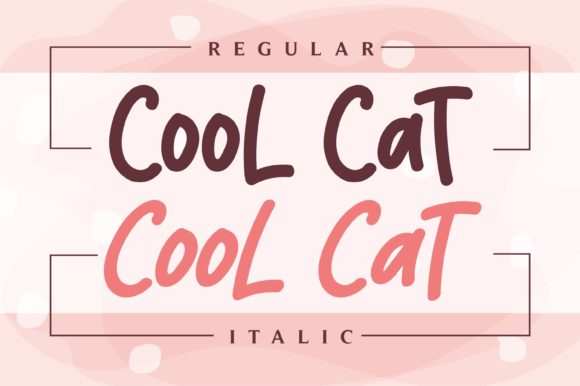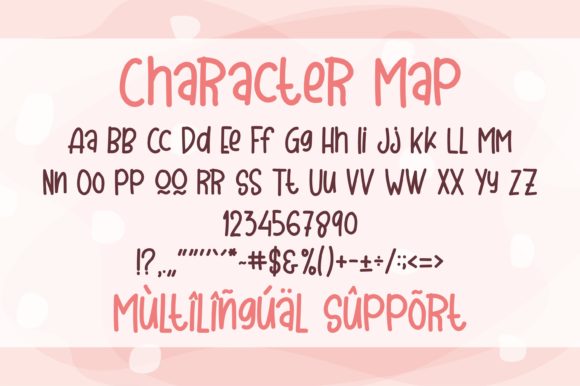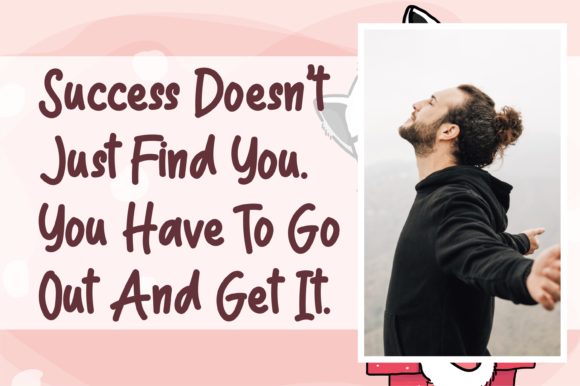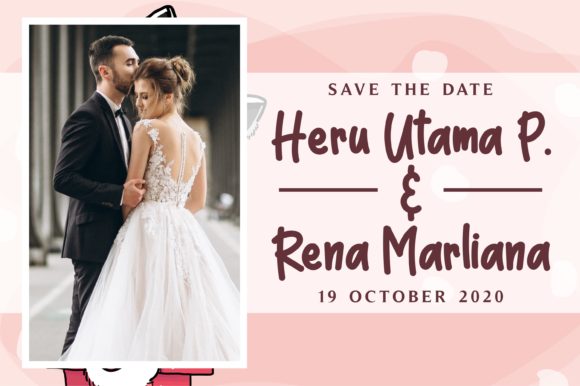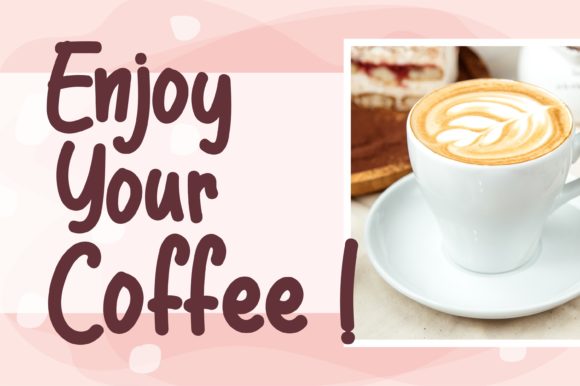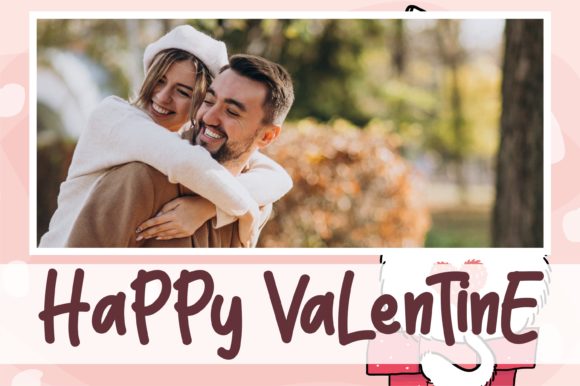
Unleash Your Creativity with Cool Cat Font: The Quirky Display Font That’s Purr-fect for DIY Projects
Are you tired of using the same old fonts for your DIY projects? Look no further! Introducing Cool Cat, a quirky display font that’s sure to bring a playful touch to any craft or design. With its unique style and charming personality, Cool Cat is the perfect choice for designers and crafters looking to add some fun and whimsy to their work.
The Playful Look of Cool Cat Font
Cool Cat is a one-of-a-kind font that’s sure to capture the attention of anyone who sees it. Its playful look is characterized by bold lines, irregular shapes, and a dash of quirkiness. The font’s unique style is reminiscent of hand-drawn letters, giving it a personal and friendly feel that’s hard to resist.
Whether you’re working on a DIY project, designing a logo, or creating social media graphics, Cool Cat is the perfect choice. Its versatility and charm make it suitable for a wide range of applications, from crafting and scrapbooking to branding and advertising.
Why You’ll Fall in Love with Cool Cat Font
So, what makes Cool Cat so special? Here are just a few reasons why you’ll fall in love with this quirky display font:
- Unique Style: Cool Cat has a style that’s all its own. Its bold, playful look is sure to set your designs apart from the crowd.
- Easy to Read: Despite its quirky appearance, Cool Cat is surprisingly easy to read. This makes it perfect for headlines, titles, and other applications where readability is important.
- Versatile: Cool Cat is a versatile font that can be used in a wide range of applications, from digital designs to print projects.
- Fun and Whimsical: Cool Cat has a playful personality that’s sure to bring a smile to your face. It’s the perfect choice for designers and crafters who want to add some fun and whimsy to their work.
Using Cool Cat Font in Your DIY Projects
So, how can you use Cool Cat in your DIY projects? The possibilities are endless! Here are a few ideas to get you started:
- Scrapbooking: Add a playful touch to your scrapbook pages with Cool Cat. Use it to title your pages, highlight important dates, or create fun and colorful journaling.
- Crafting: Cool Cat is perfect for crafters who want to add a personal touch to their projects. Use it to create labels, tags, and other embellishments for your crafts.
- Sign Making: Create eye-catching signs with Cool Cat. Its bold, playful look is sure to grab attention and add a touch of whimsy to any sign.
- Digital Designs: Cool Cat is also perfect for digital designers who want to add a playful touch to their work. Use it to create social media graphics, blog headers, and other digital designs.
Tips for Getting the Most Out of Cool Cat Font
Here are a few tips for getting the most out of Cool Cat:
- Experiment with Colors: Cool Cat looks great in a variety of colors. Experiment with different hues and combinations to find the perfect look for your project.
- Mix and Match: Don’t be afraid to mix and match Cool Cat with other fonts. Its unique style makes it a great choice for pairing with other fonts to create a visually interesting design.
- Play with Size: Cool Cat looks great in a variety of sizes. Experiment with different sizes to find the perfect look for your project.
In conclusion, Cool Cat is a quirky display font that’s sure to bring a playful touch to any DIY project. Its unique style, versatility, and charm make it a great choice for designers and crafters who want to add some fun and whimsy to their work. So why wait? Fall in love with Cool Cat and start creating!